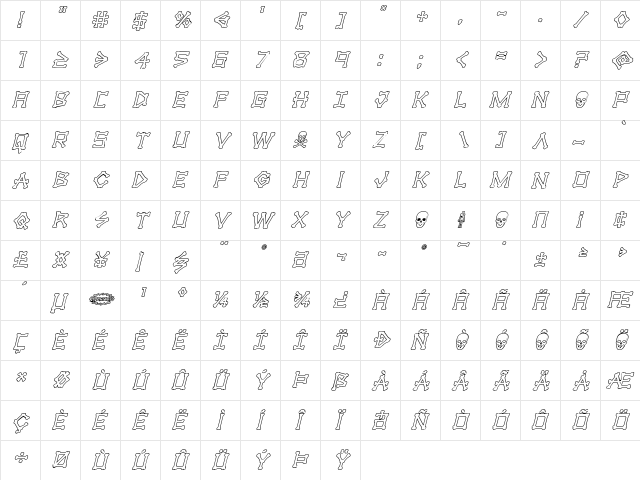
xBONES Outline Italic Outline Italic
Design Context for xBONES Outline Italic Typeface
xBONES Outline Italic is built around its visual character rather than neutral utility — its distinctive forms are designed to make an impression at display sizes. Its italic angle brings a sense of urgency and motion to the letterforms.
Font Pairing: Pair with a clean neutral sans-serif for body copy to let xBONES Outline Italic's character lead without overwhelming the composition.
Pro Tip: Treat xBONES Outline Italic as the centrepiece of your typographic hierarchy. One strong heading set in a decorative face can carry an entire layout.